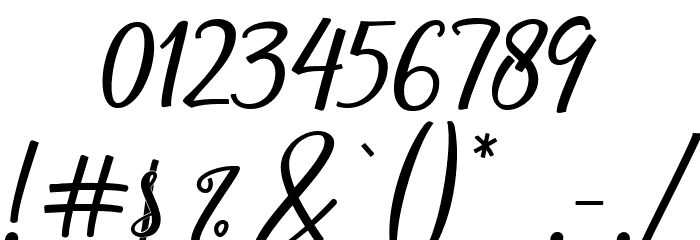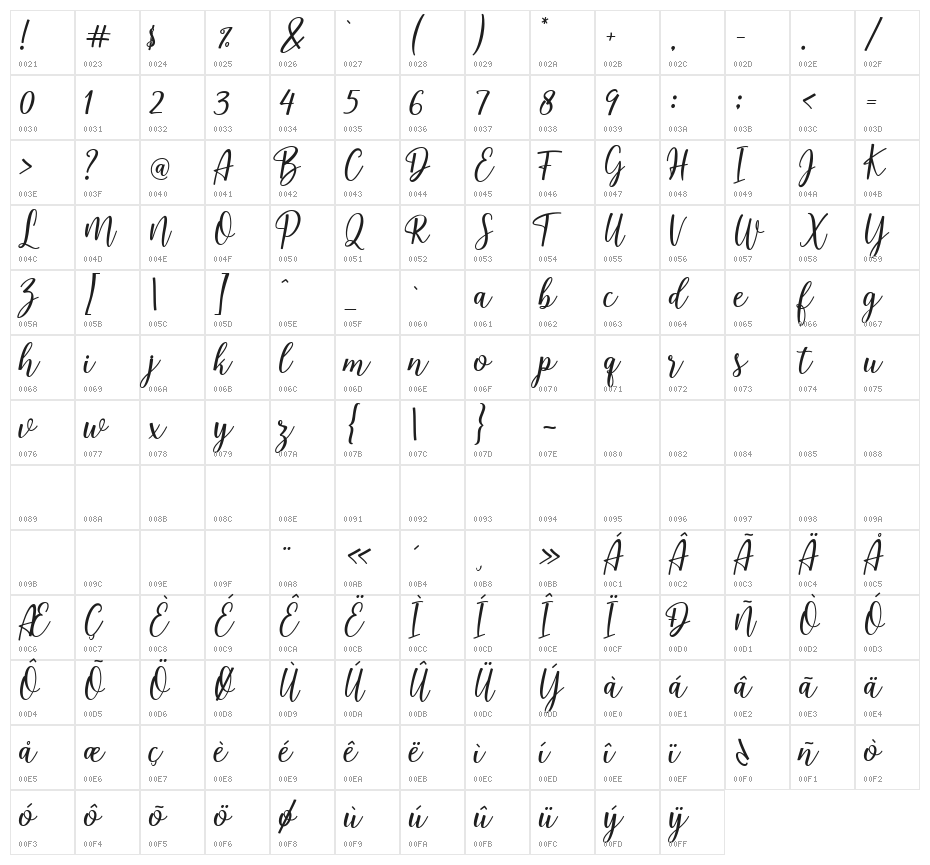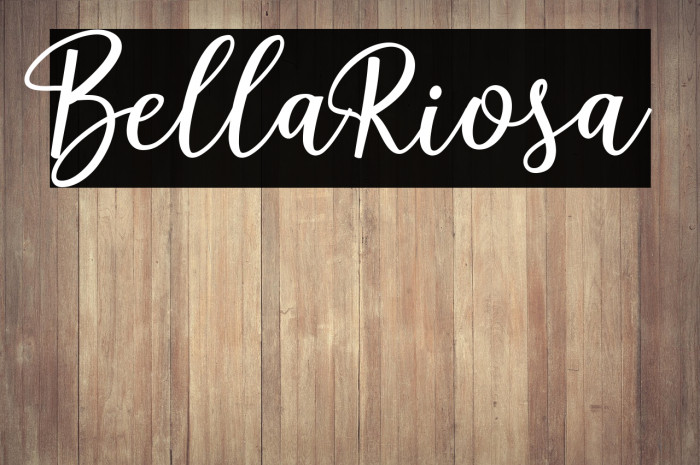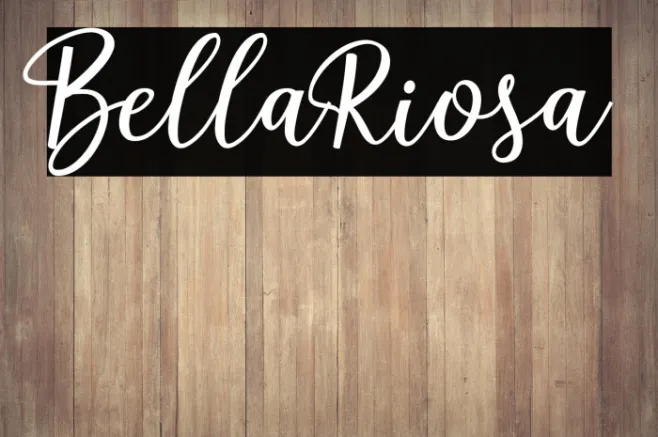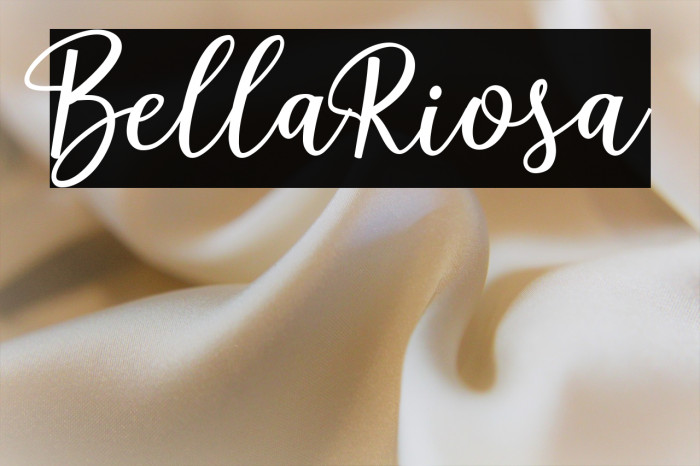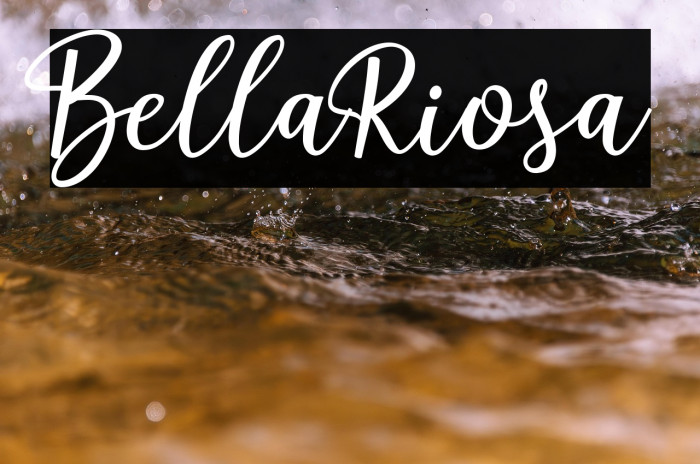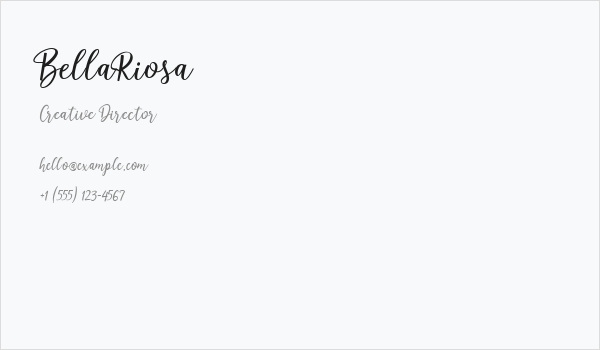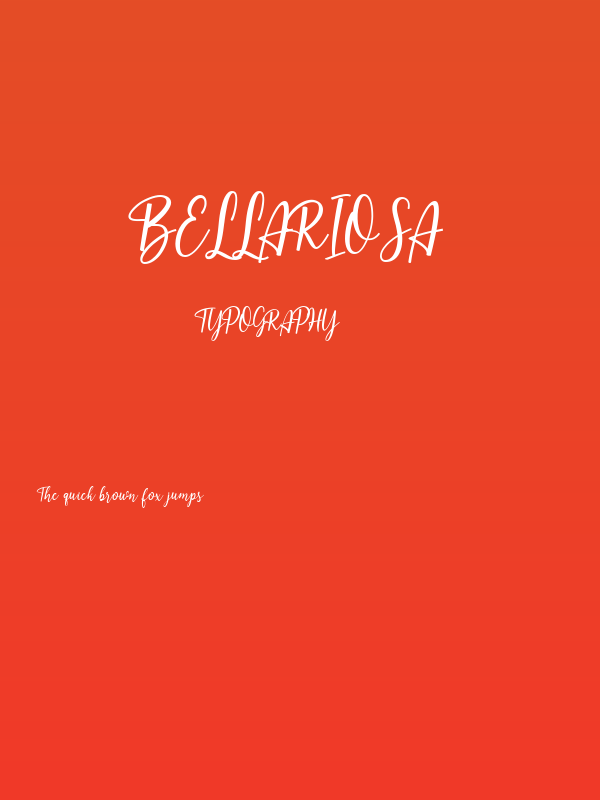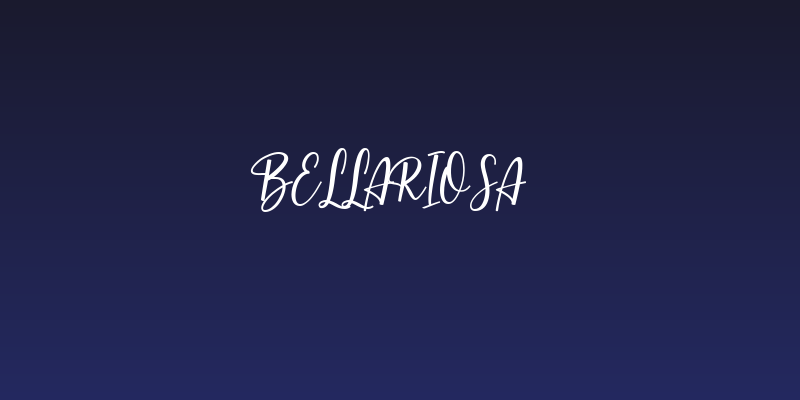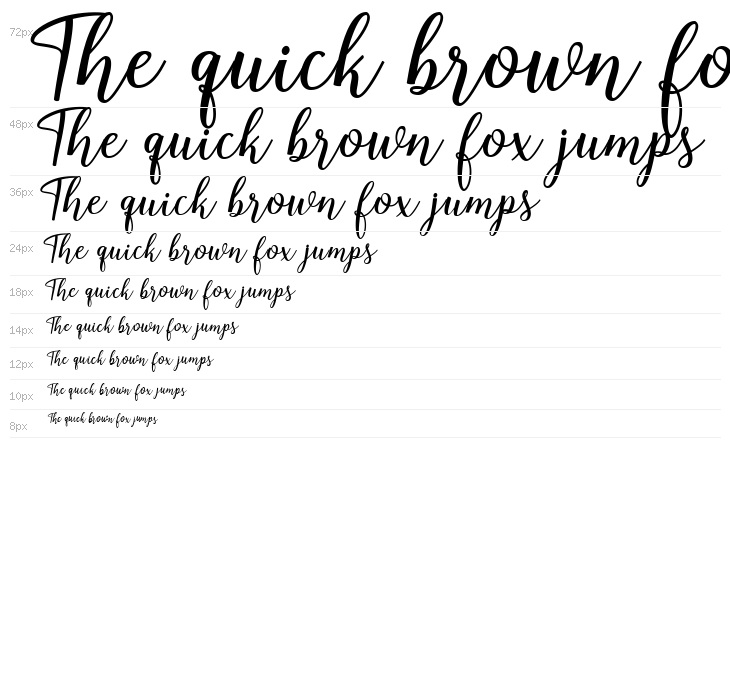
BellaRiosa Font
BellaRiosa Description
This font exudes elegance and fluidity with its cursive, handwritten style. The characters are connected in a smooth, flowing manner, giving it a personal and artistic touch. The uppercase letters are bold and prominent, while the lowercase letters maintain a consistent flow with slightly exaggerated loops and curves. The numerals are clear and easy to read, matching the overall style of the letters. Special characters are seamlessly integrated, maintaining the font's cohesive look. This font is perfect for projects that require a touch of sophistication and creativity.